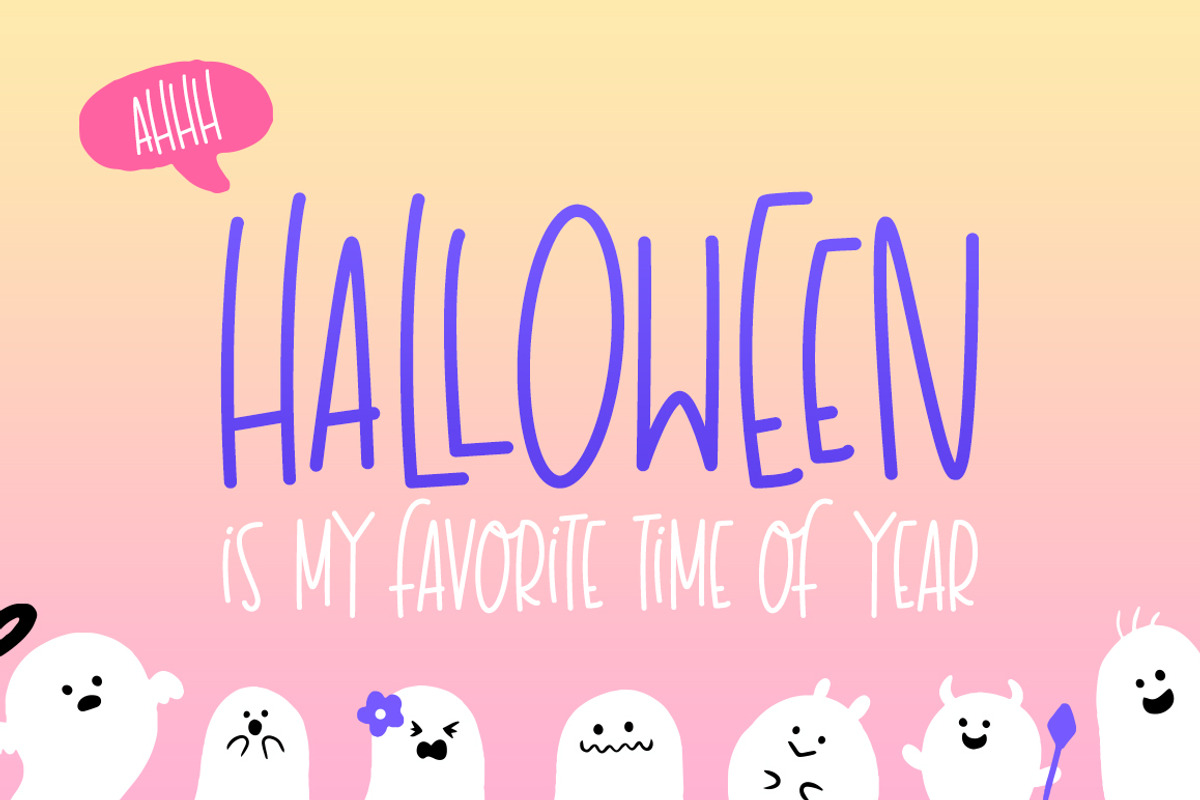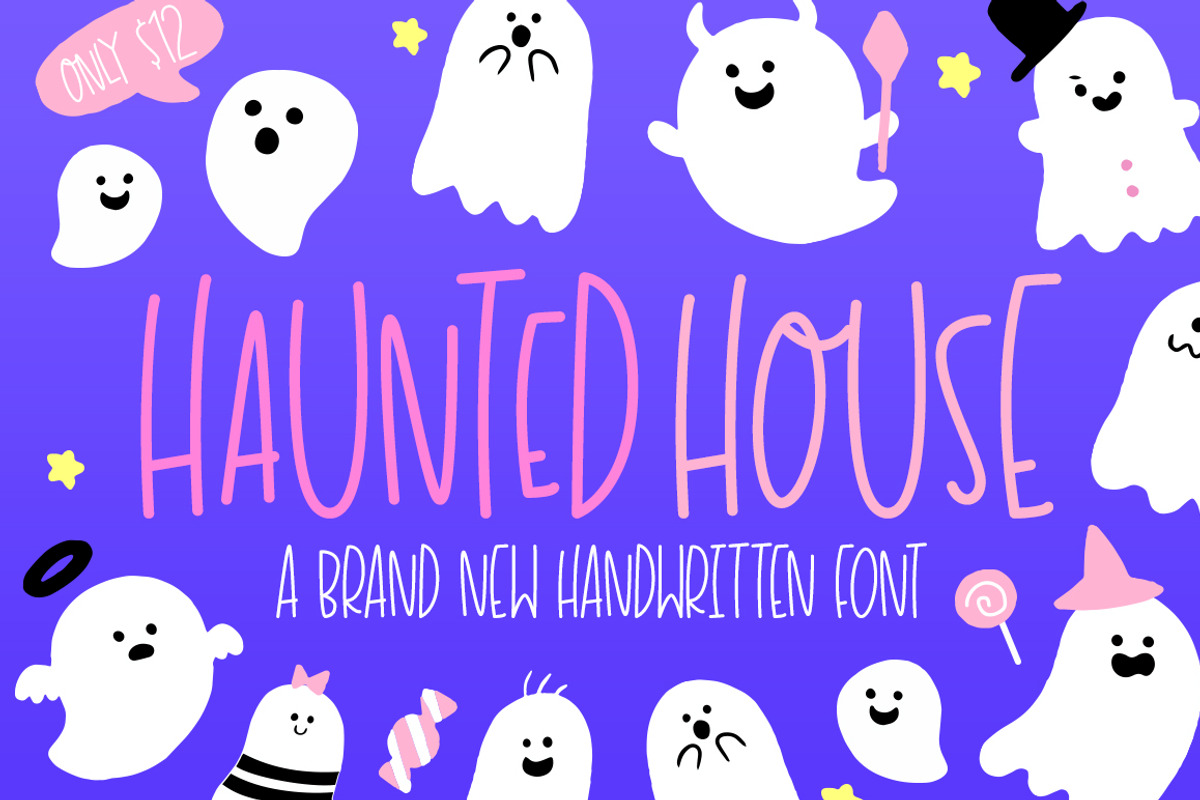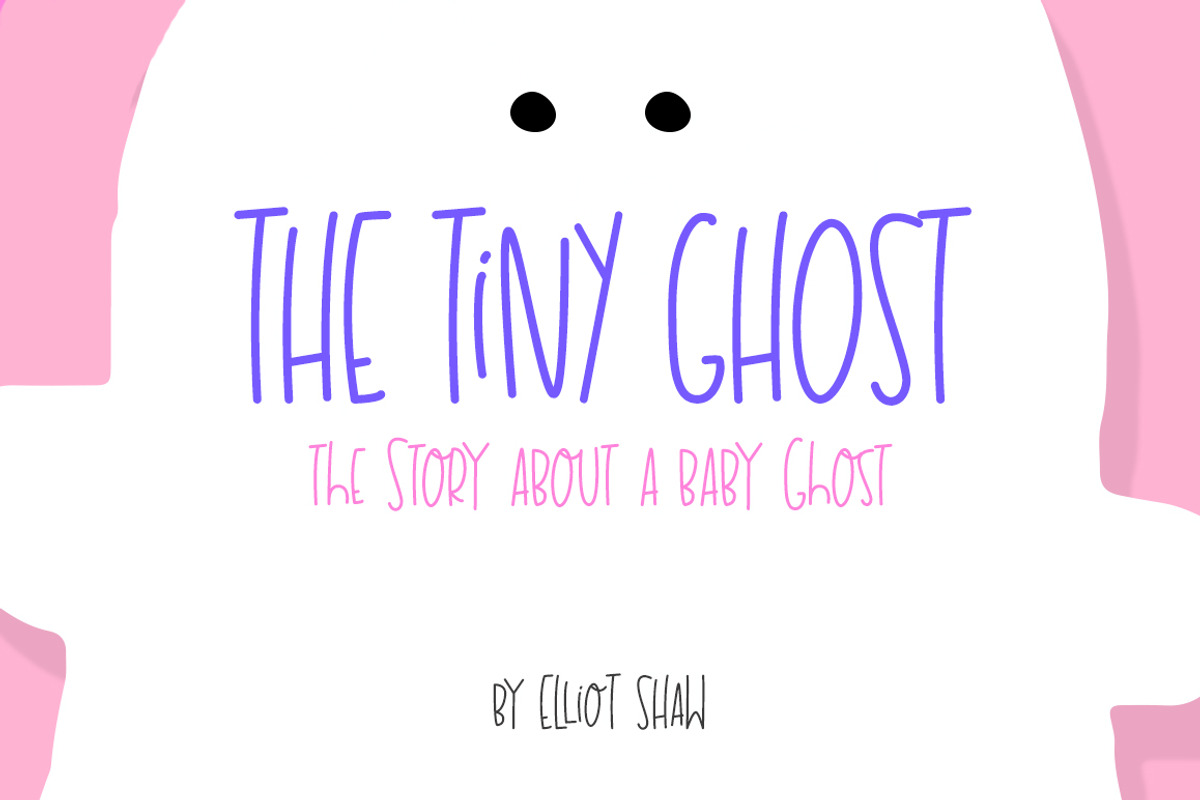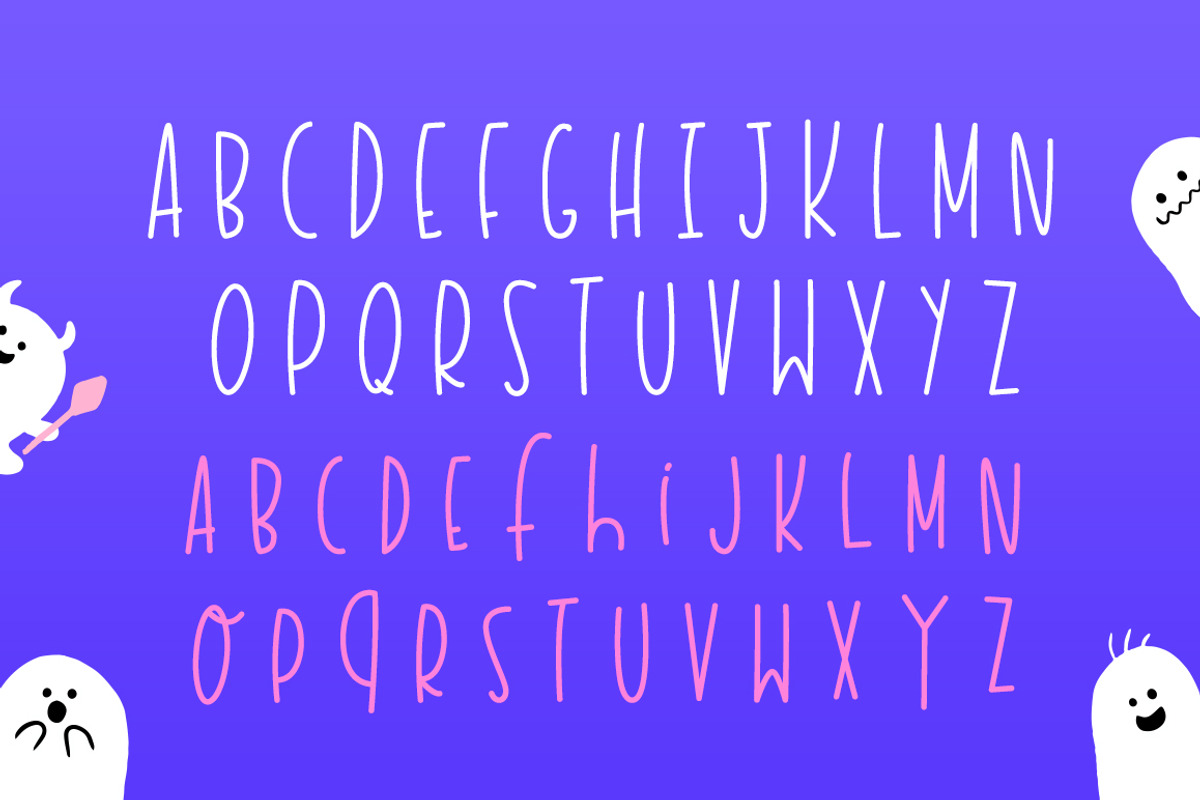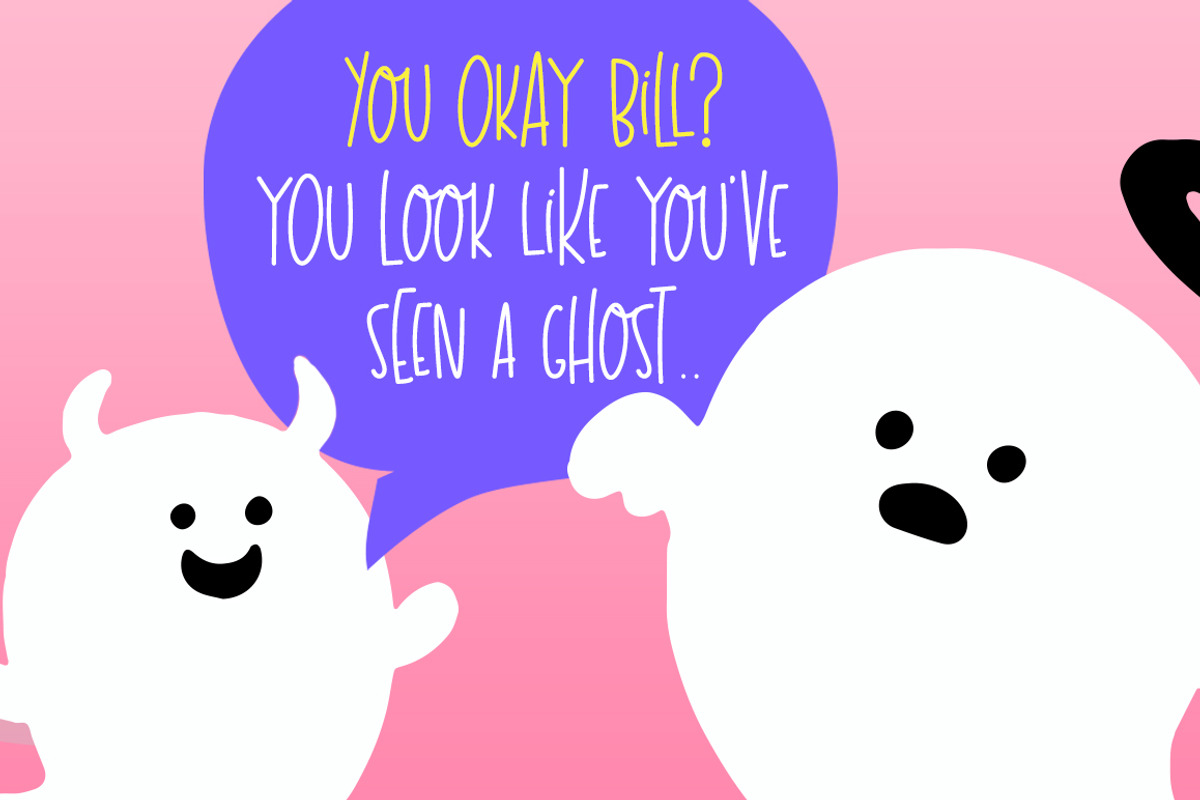
Haunted House Font
Don’t be scared, this font isn’t only for Halloween! It can be a wonderful addition to any font collection and it’s hand-drawn style makes it both adorable and unique! Grab it now and create some magical new designs.